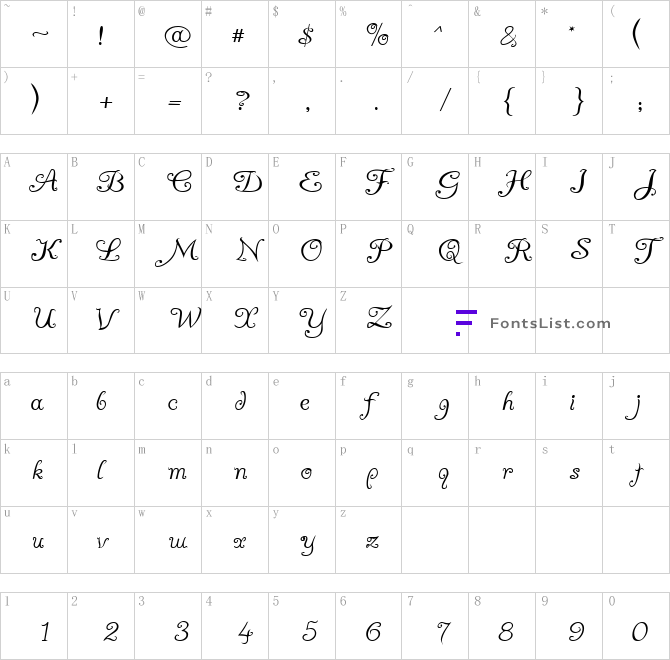
- Font Name:A Yummy Apology
A-Yummy-Apology-copy-2-.ttf is a very beautiful artistic font, A-Yummy-Apology-copy-2-.ttf is widely used in the design and printing of various books and pictures,A-Yummy-Apology-copy-2-.ttf has a strong visual impact,A-Yummy-Apology-copy-2-.ttf is a commonly used font in newspapers, magazines and books, and is used in posters, e-commerce Poster design, store design, logo design, font design and other fields.A-Yummy-Apology-copy-2-.